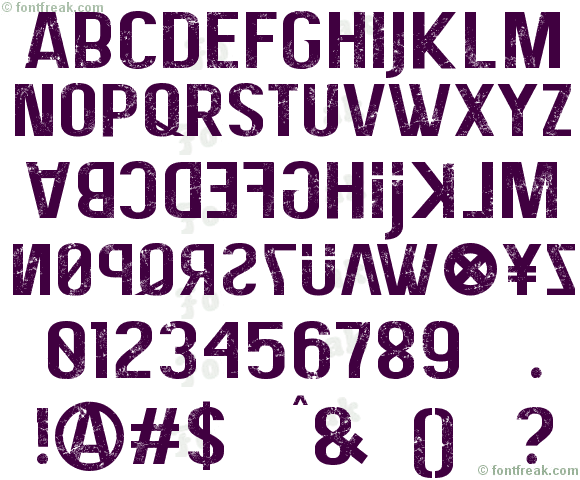
Elite Hacker (Corroded)
About Elite Hacker (Corroded)
Elite Hacker (Corroded) by Michael Muranaka is a striking display typeface that captures the essence of a digital aesthetic with a gritty, worn appearance. This font falls into the category of decorative typefaces, showcasing a unique, corroded style that evokes a sense of rebellion and edginess, making it perfect for projects that require a bold statement. The design features a medium stroke weight with a consistent contrast, enhancing the legibility while retaining its distinctive character. The letters are spaced closely, contributing to an impactful visual presence, and the subtle decorative elements create an authentic, distressed look that resonates with themes of technology and subculture.
This font is particularly well-suited for a variety of creative applications. Graphic designers can utilize the Elite Hacker (Corroded) font for eye-catching movie posters, especially in genres like sci-fi or thriller that call for a modern, tech-oriented feel. It can also enhance the branding of tech startups or gaming companies, making it an excellent choice for logos or promotional materials. Additionally, content creators can leverage this font in social media graphics, event flyers, or even merchandise that aims to attract a niche audience. Small business owners looking to stand out in a competitive market may find this typeface ideal for their signage or packaging, as it conveys a strong, memorable identity.
What sets the Elite Hacker (Corroded) font apart is its unique ability to blend a sense of the digital underground with a visually compelling design. This font stands out not only for its artistic flair but also for its versatility across various contexts. With the Elite Hacker (Corroded) font free download, you can incorporate this distinctive typeface into your next project and make a lasting impression.